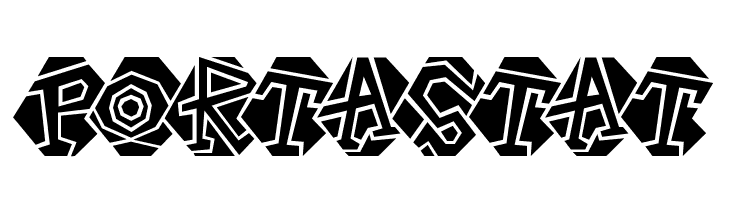
A decorative font with letters inside heart shapes, flanked by cutlery.
( Fonts by Andrew McCluskey - nalgames.com )
A bold, geometric font with a strong, masculine aesthetic.
( Fonts by Jorge Paulino Dzul Koyoc )
A bold, decorative blackletter font with high contrast and ornate details.
( Fonts by earl ciel )
A bold, geometric font with a modern, futuristic style.
( Fonts by earl ciel )
A bold, blocky font with a playful, three-dimensional appearance.
( Fonts by earl ciel )
A modern, dotted font with geometric and playful characteristics.